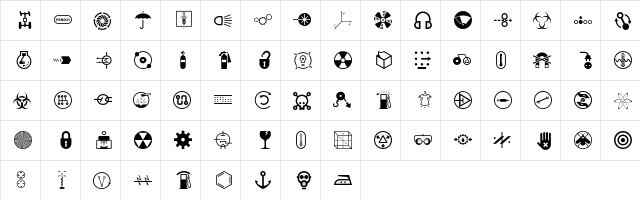
Nucleus One
Design Context for Nucleus Typeface
Nucleus is a composed and adaptable typeface that performs quietly and consistently across a wide range of design contexts.